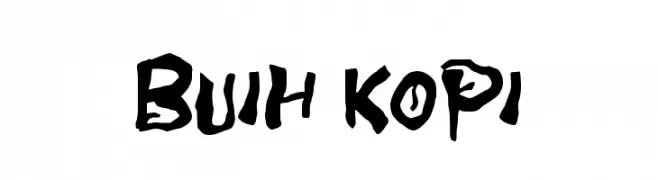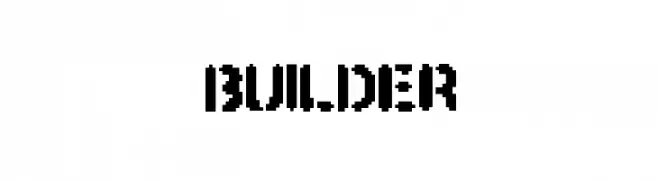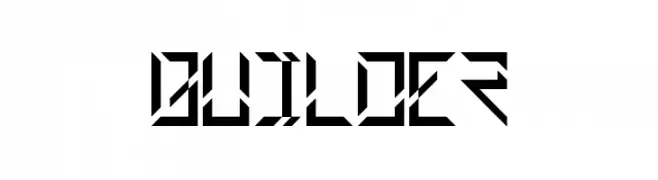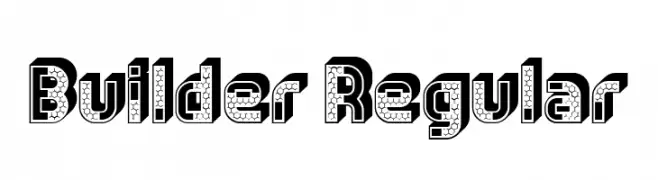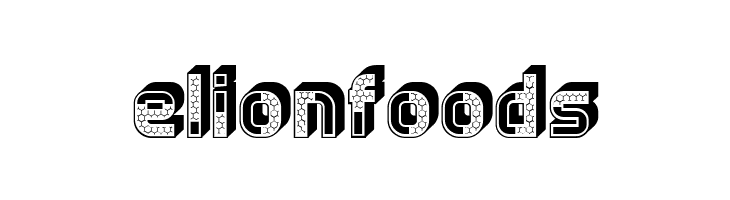
A bold, hand-drawn font with an expressive, graffiti-like style.
A bold, impactful typeface with thick, uniform strokes.
A bold, geometric font with sharp angles and a futuristic style.
A bold, decorative font with a geometric hexagonal pattern and strong outlines.